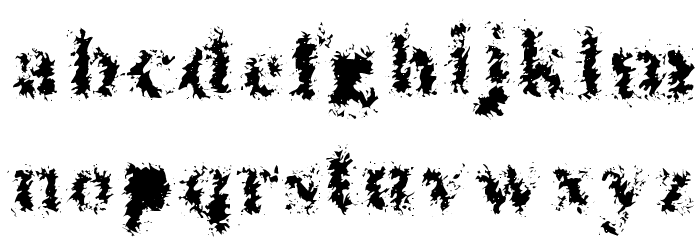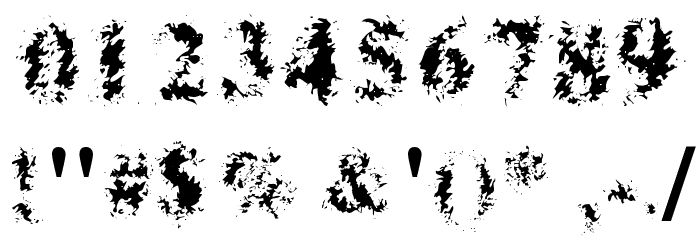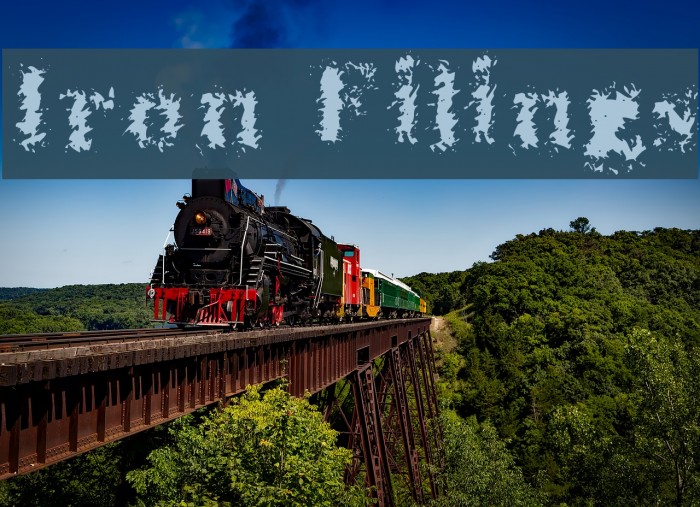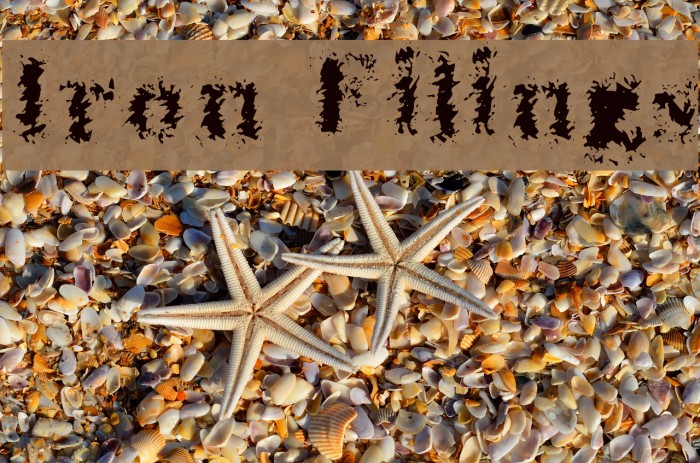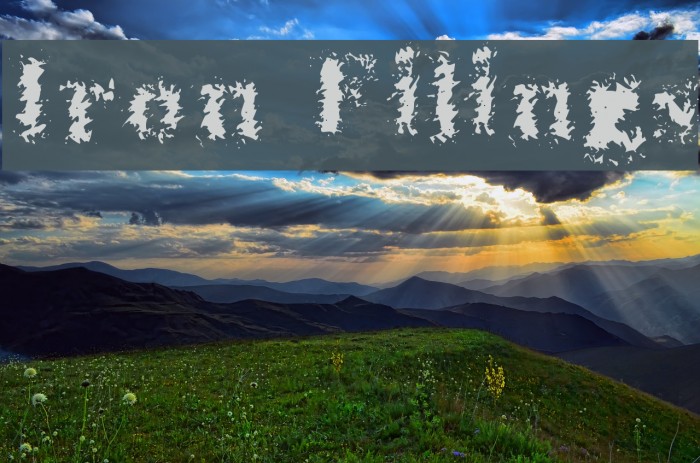
Iron Filings Font
This font features a unique and rugged texture, reminiscent of iron filings scattered across a surface. Each character is heavily stylized with a distressed, fragmented appearance, giving it a gritty and industrial feel. The uppercase and lowercase letters maintain a consistent style, with jagged edges and irregular shapes that suggest a sense of movement or erosion. Numbers and special characters follow the same design principles, ensuring a cohesive look throughout. This font's bold and striking aesthetic makes it stand out, perfect for projects that require a raw, edgy vibe.
A rugged, textured font with a distressed, industrial appearance.
- Proposed Projects: Ideal for album covers, posters, branding for industrial-themed products, or any design needing a bold, gritty look.
- Overall Style: Industrial, Edgy